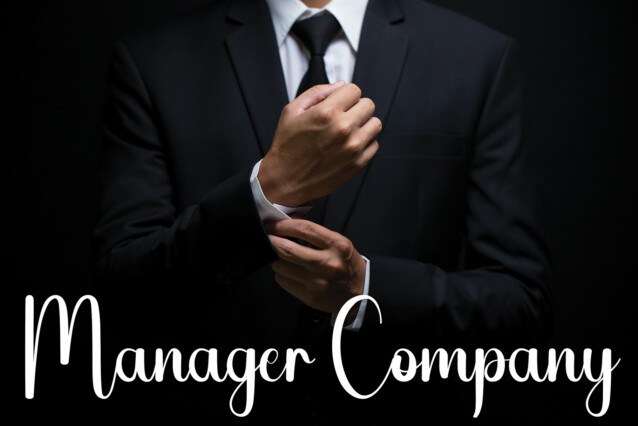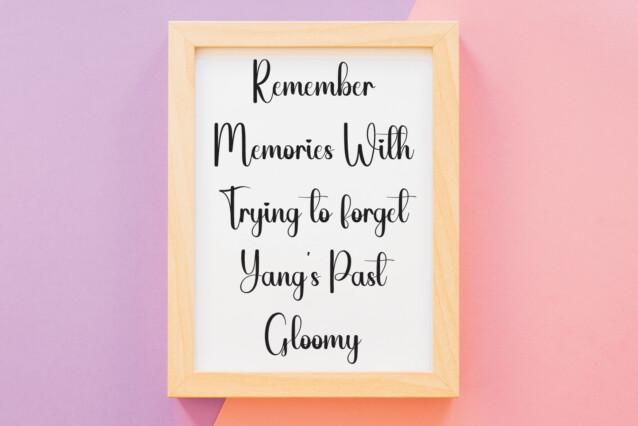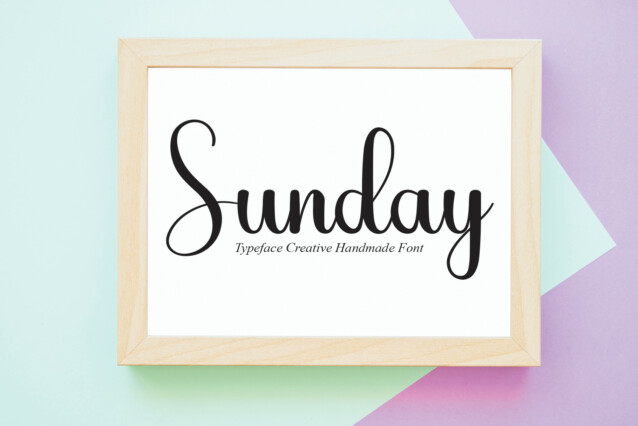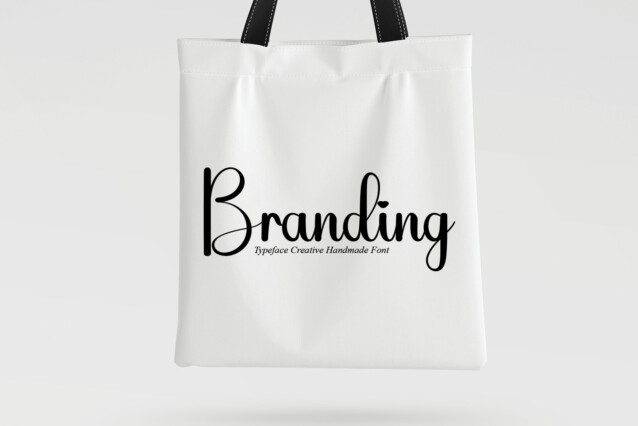
Simple Home Script Font
Simple Home Script Font is a delicate and elegant handwritten font. Its distinct and well-balanced letters make this font a masterpiece. Fall in love with its incredibly versatile style and use it to create spectacular designs!